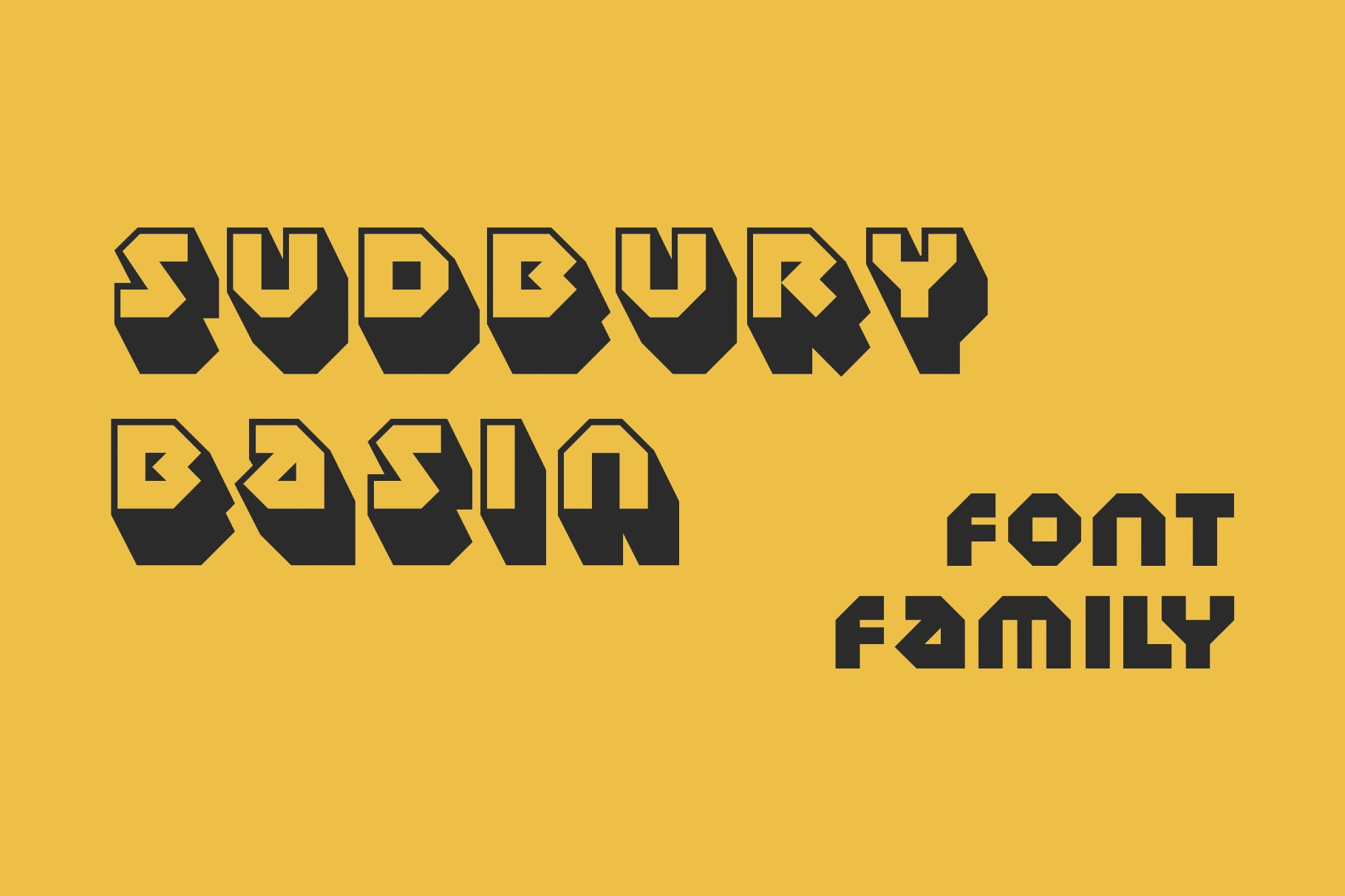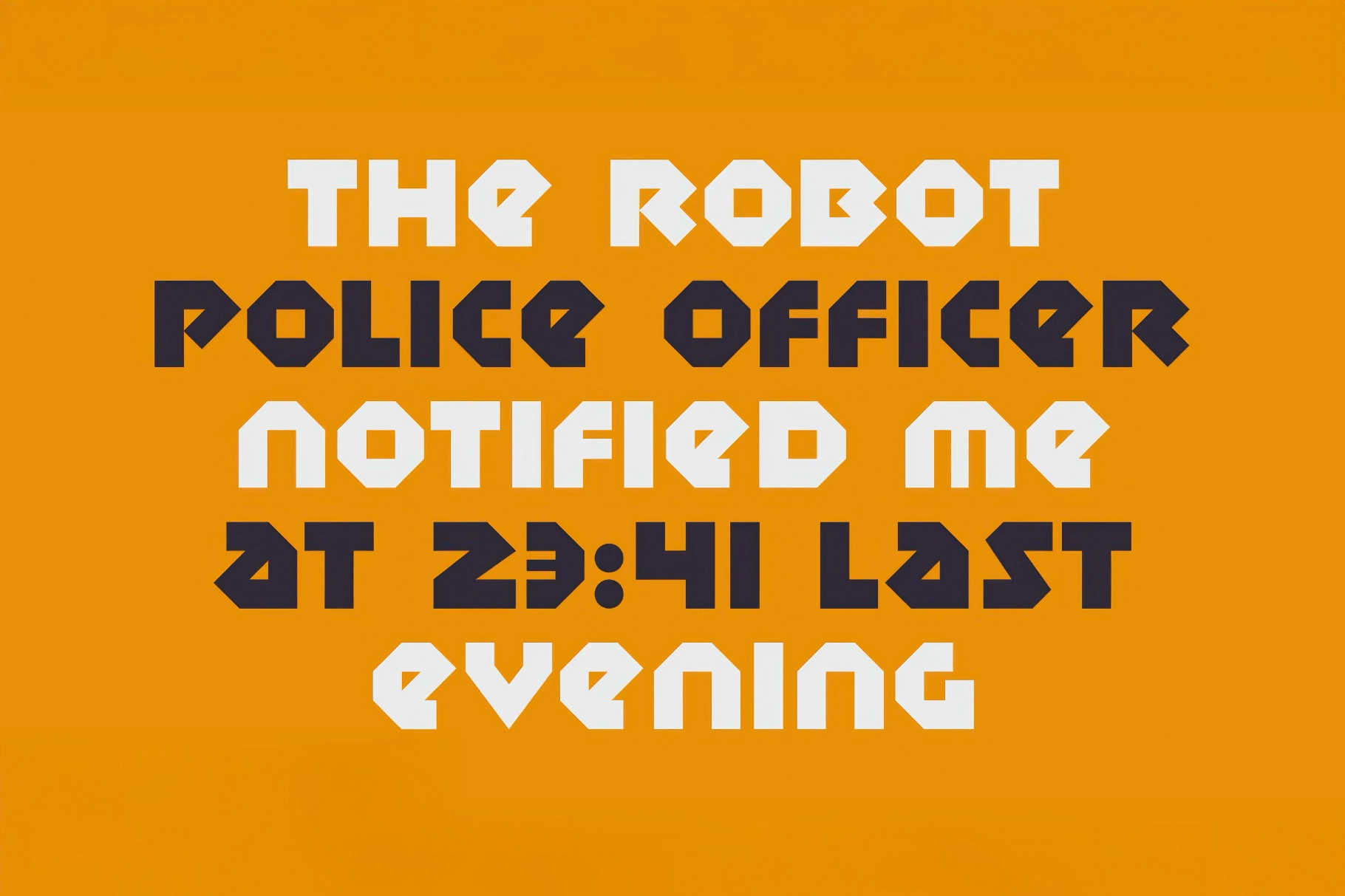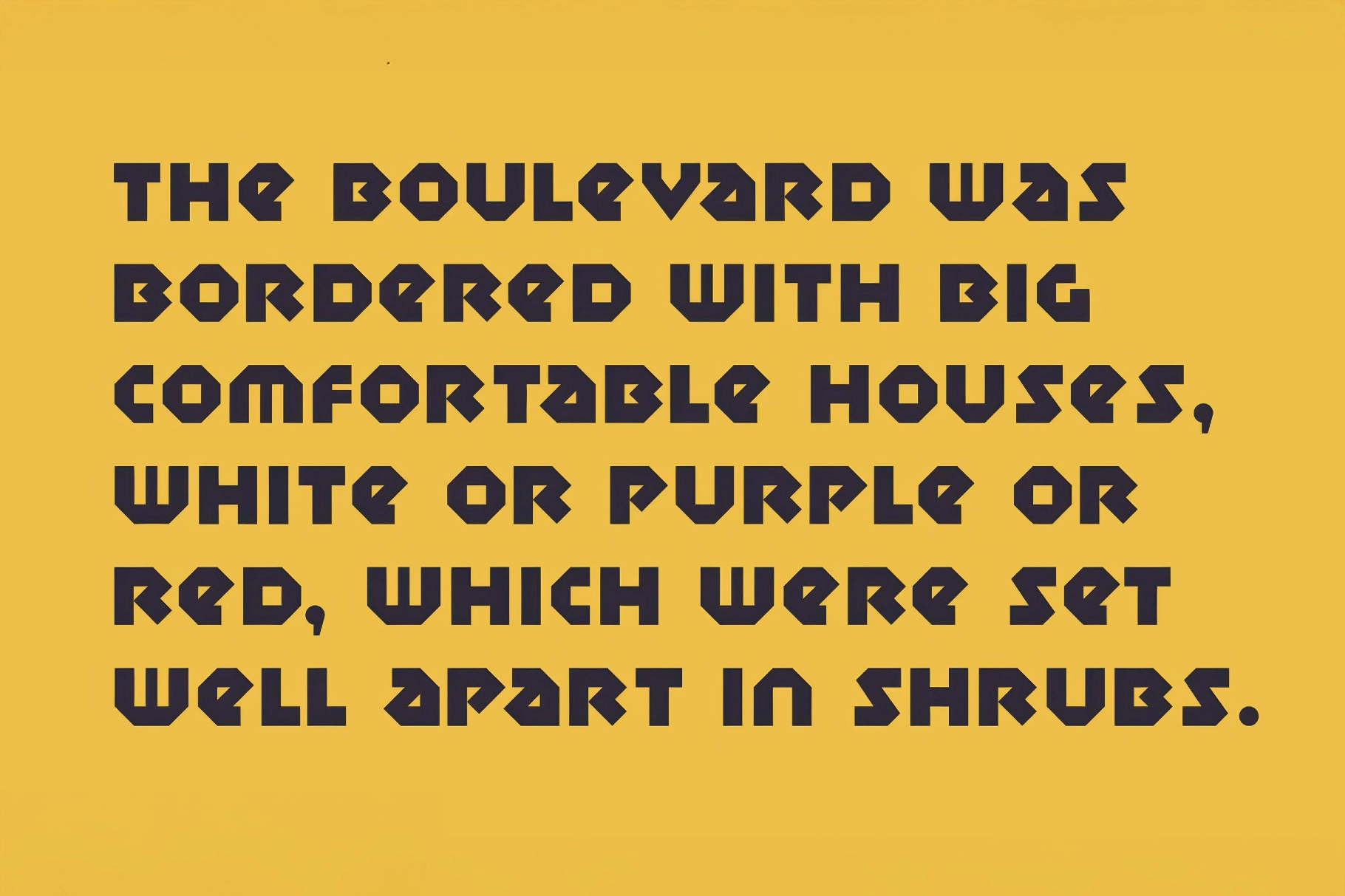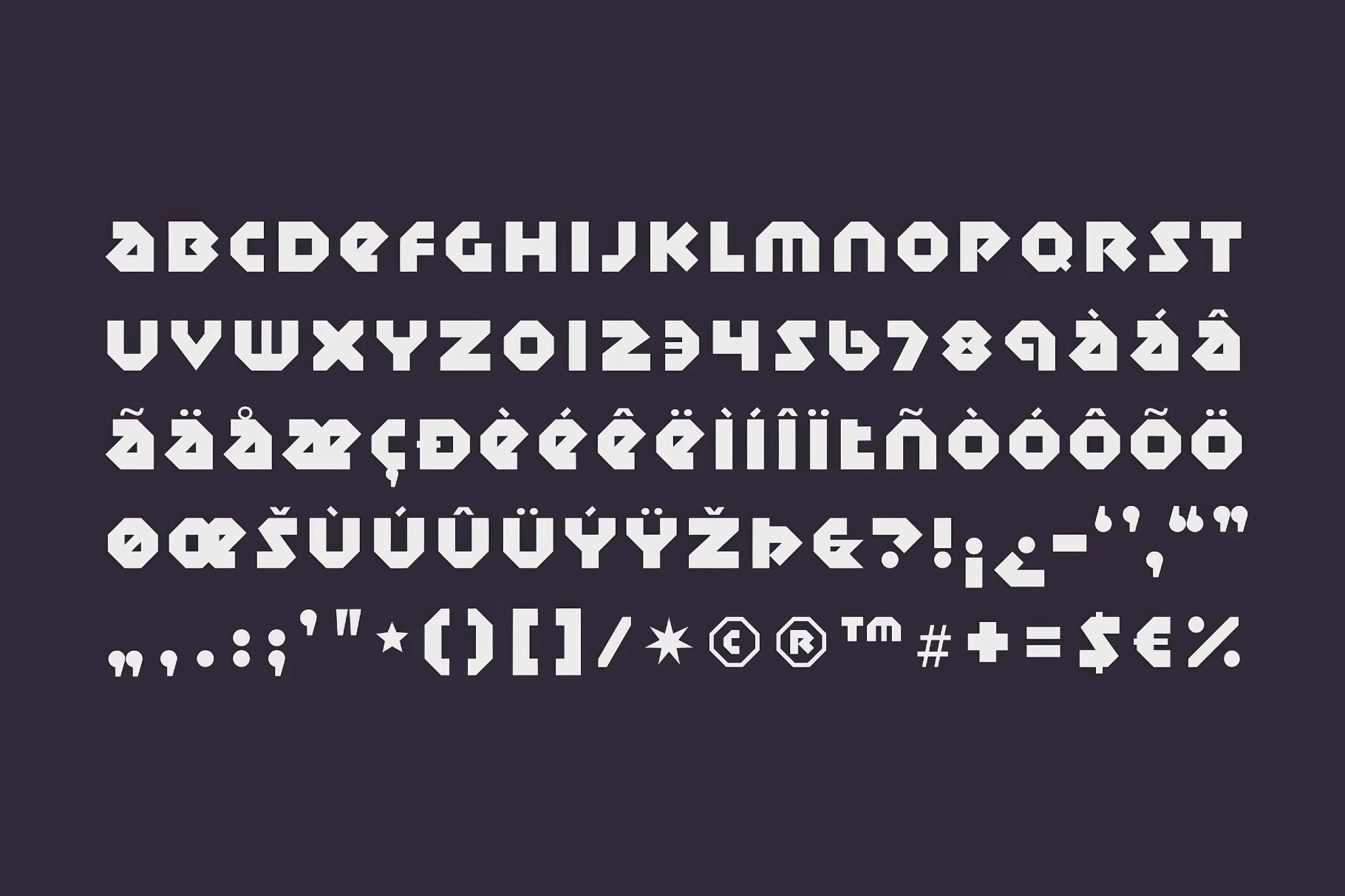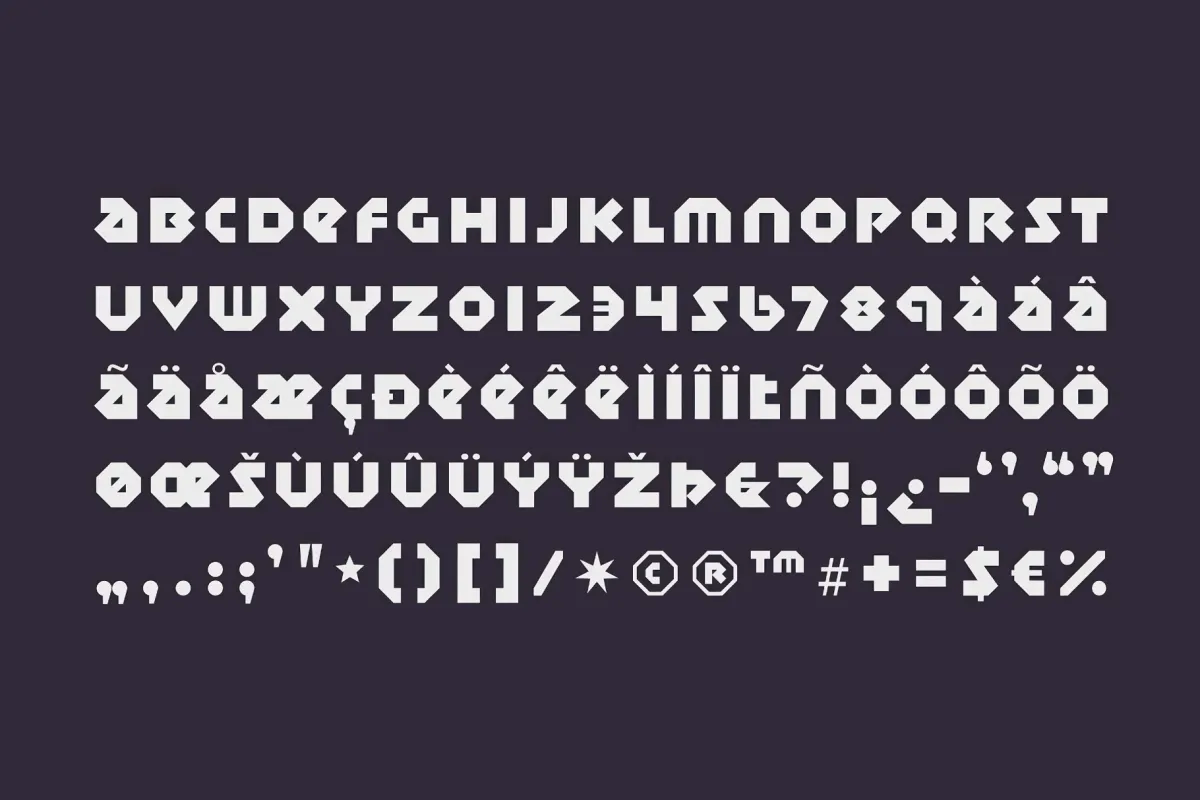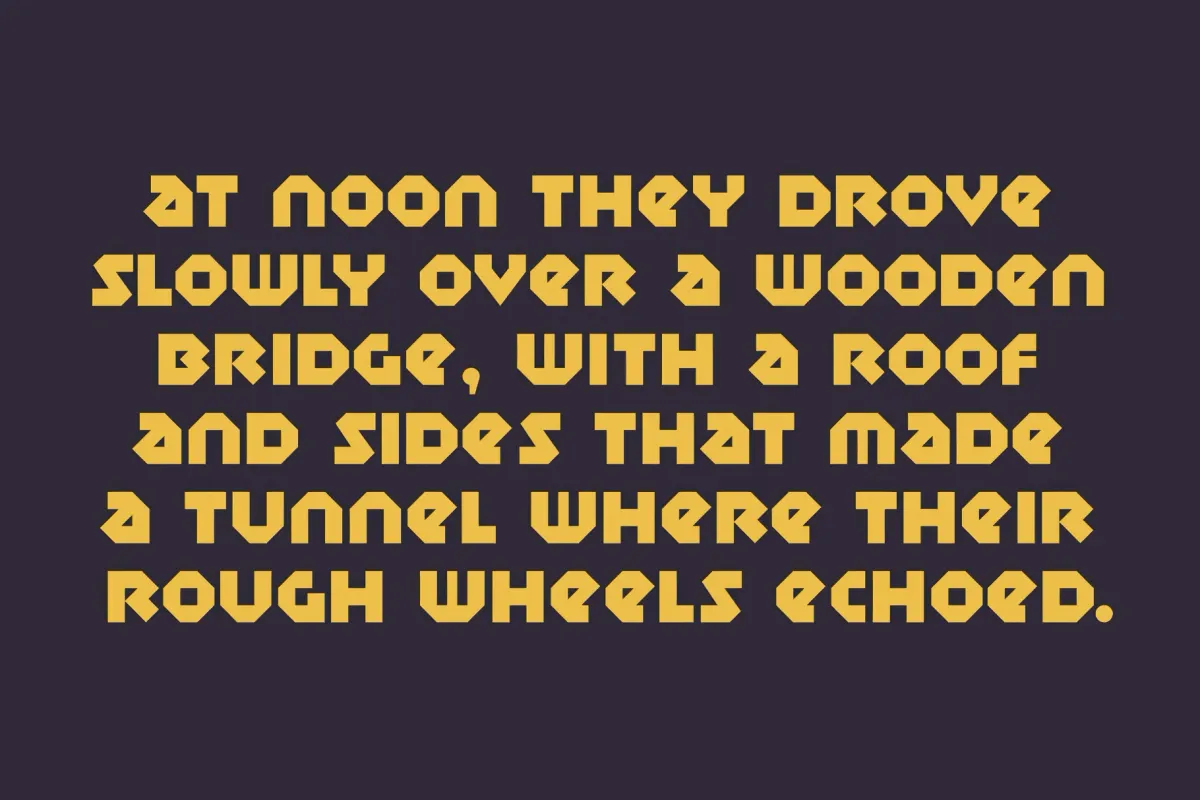
Sudbury Basin Font Family
Sudbury Basin
The letterforms of Sudbury Basin are packed into solid, industrial slabs, with straight-sided strokes and tight curves that seem cut from heavy-metal signage. This rugged, utilitarian all-caps font turns each word into a piece of typographic hardware, ready for editorial layouts, branding, wayfinding systems, packaging copy, documentary titles, beer and spirits labels, and web headers.
- Two styles: Regular and Regular 3D.
- Only uppercase letters.
- International characters with multilingual support across extended Latin scripts.